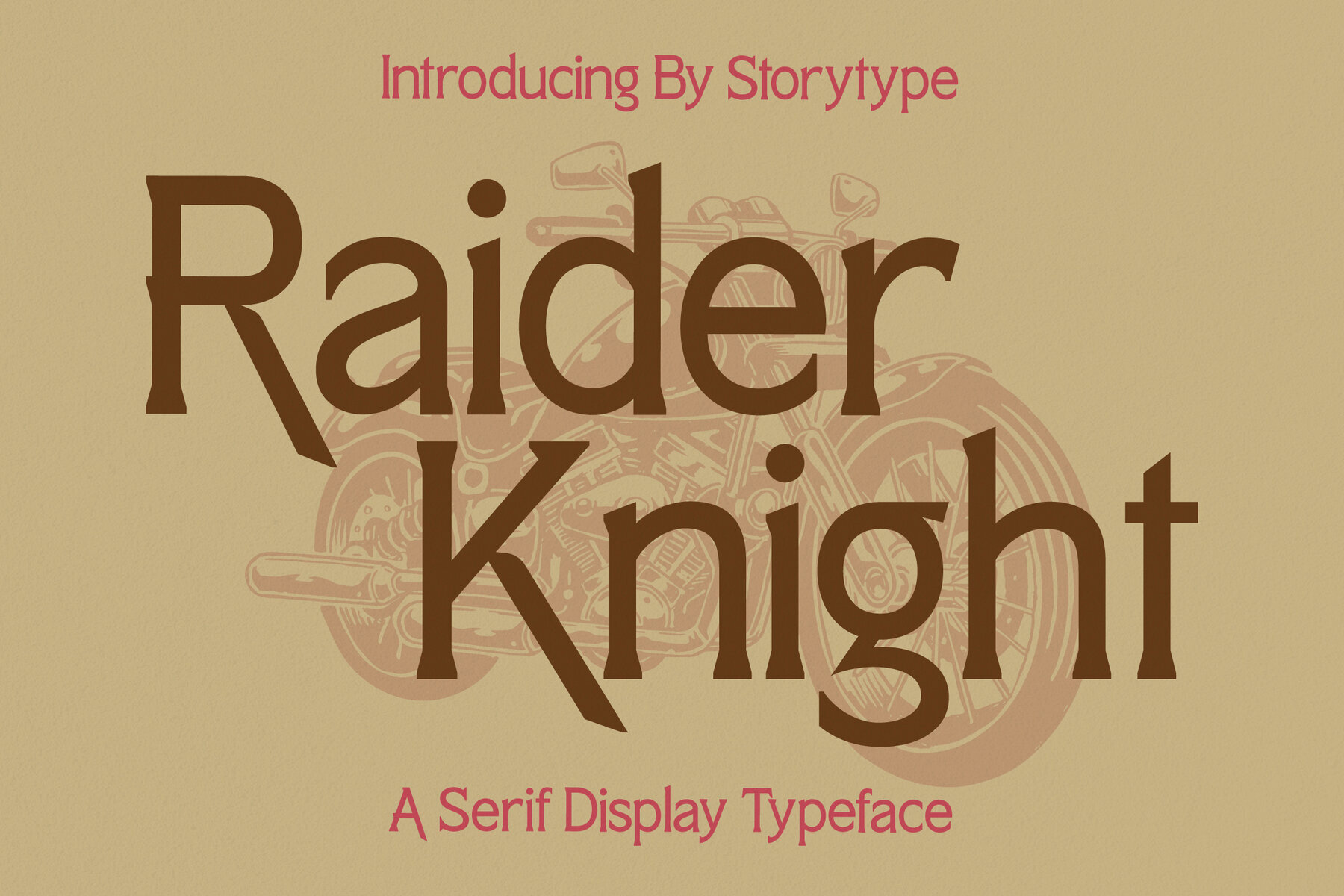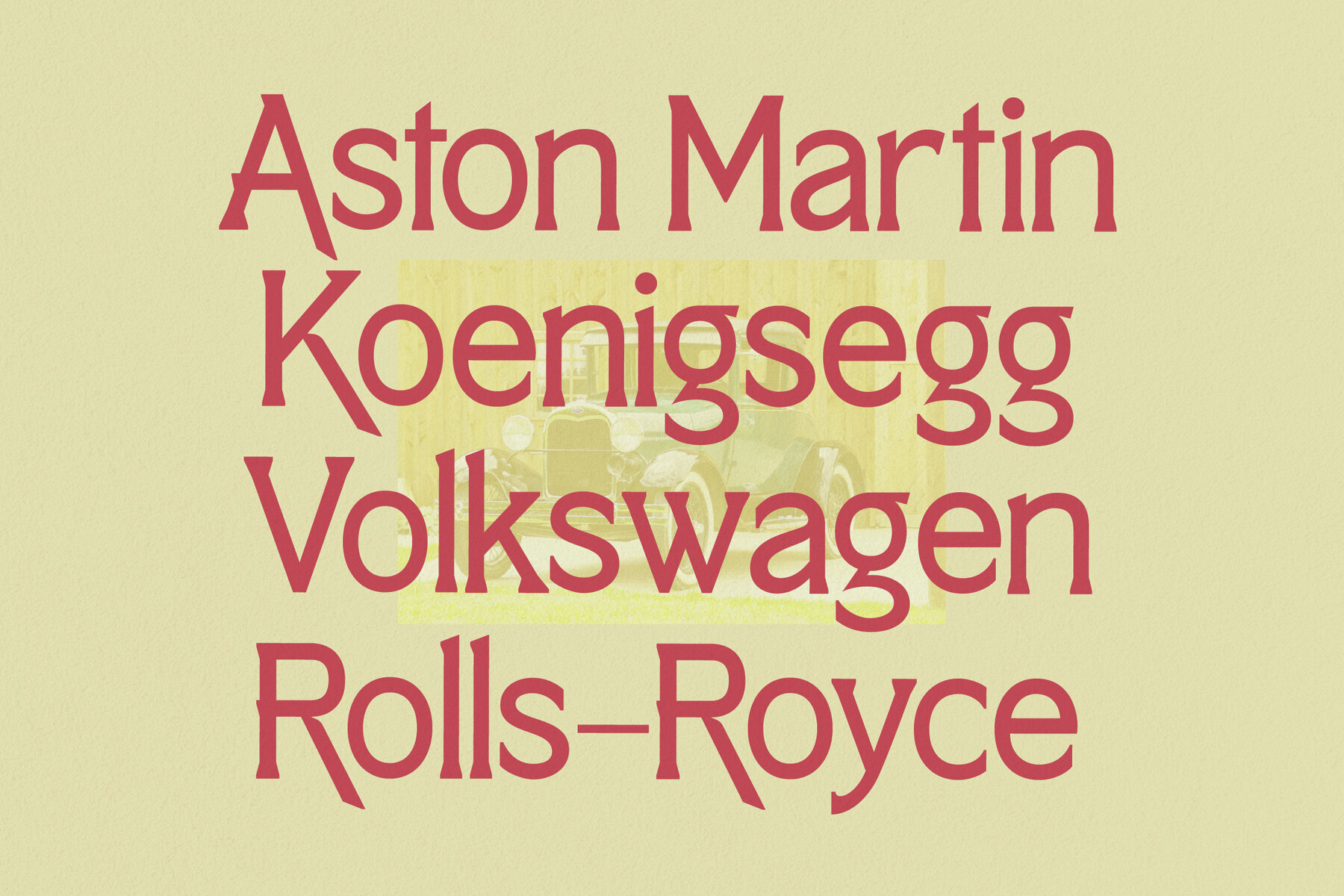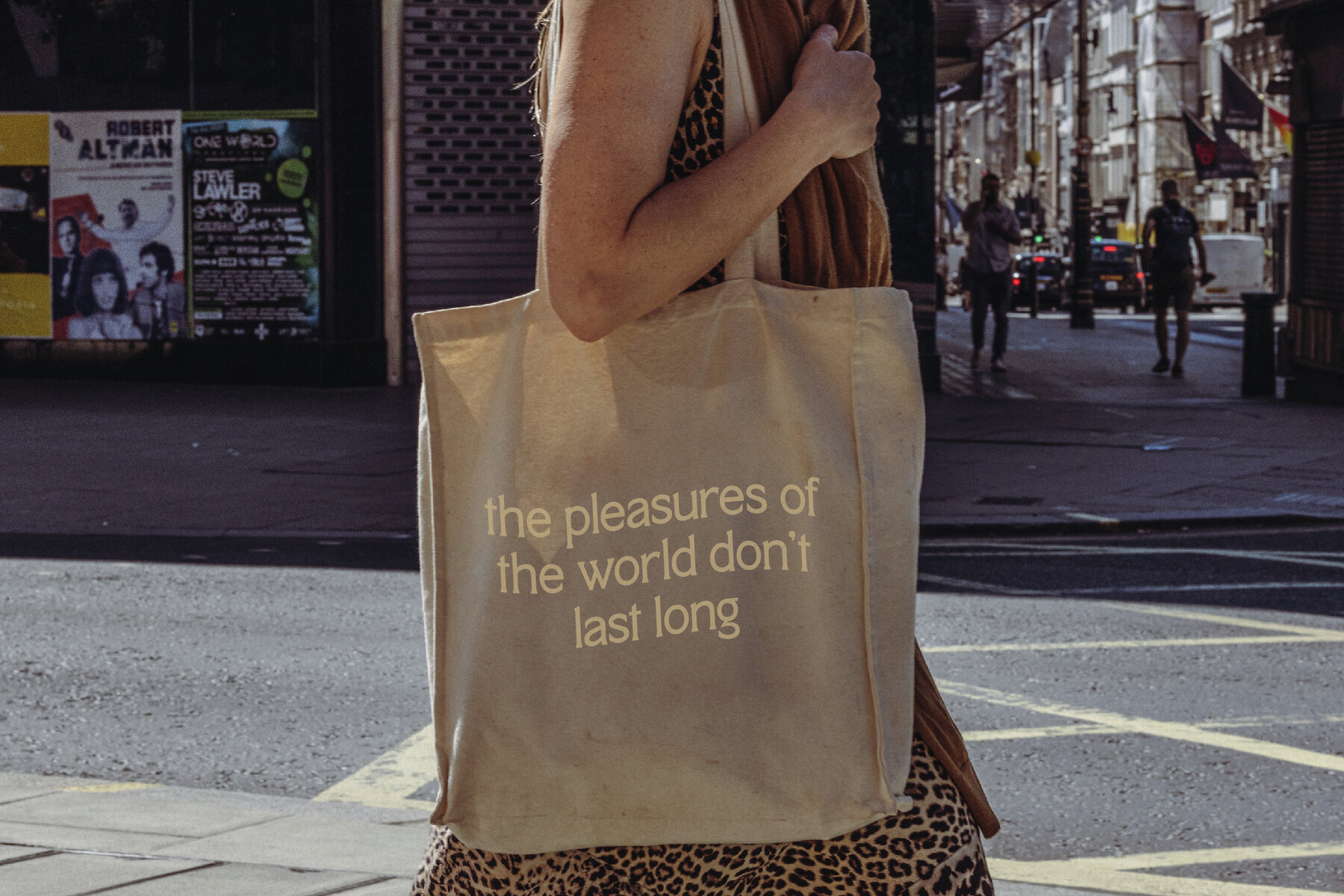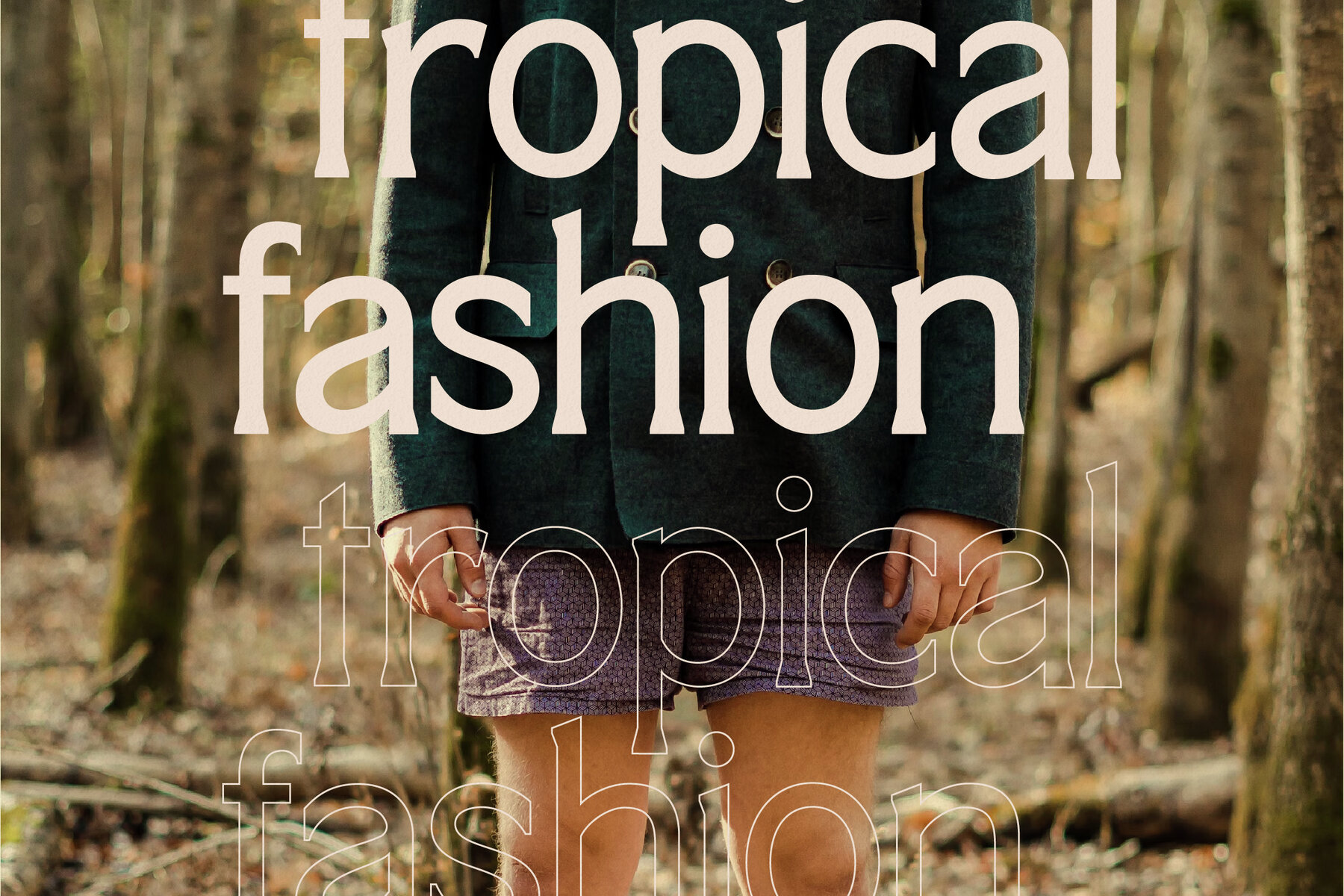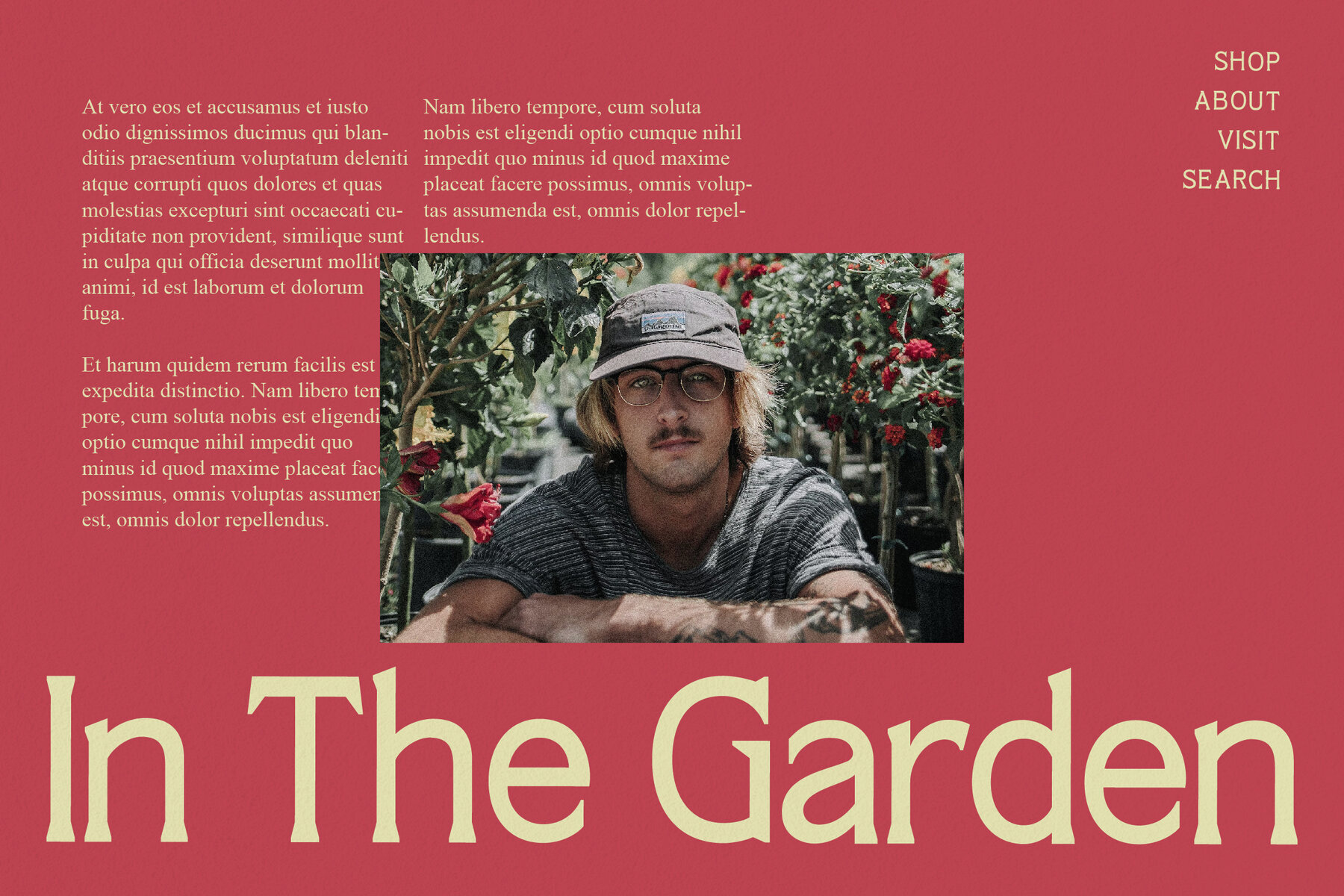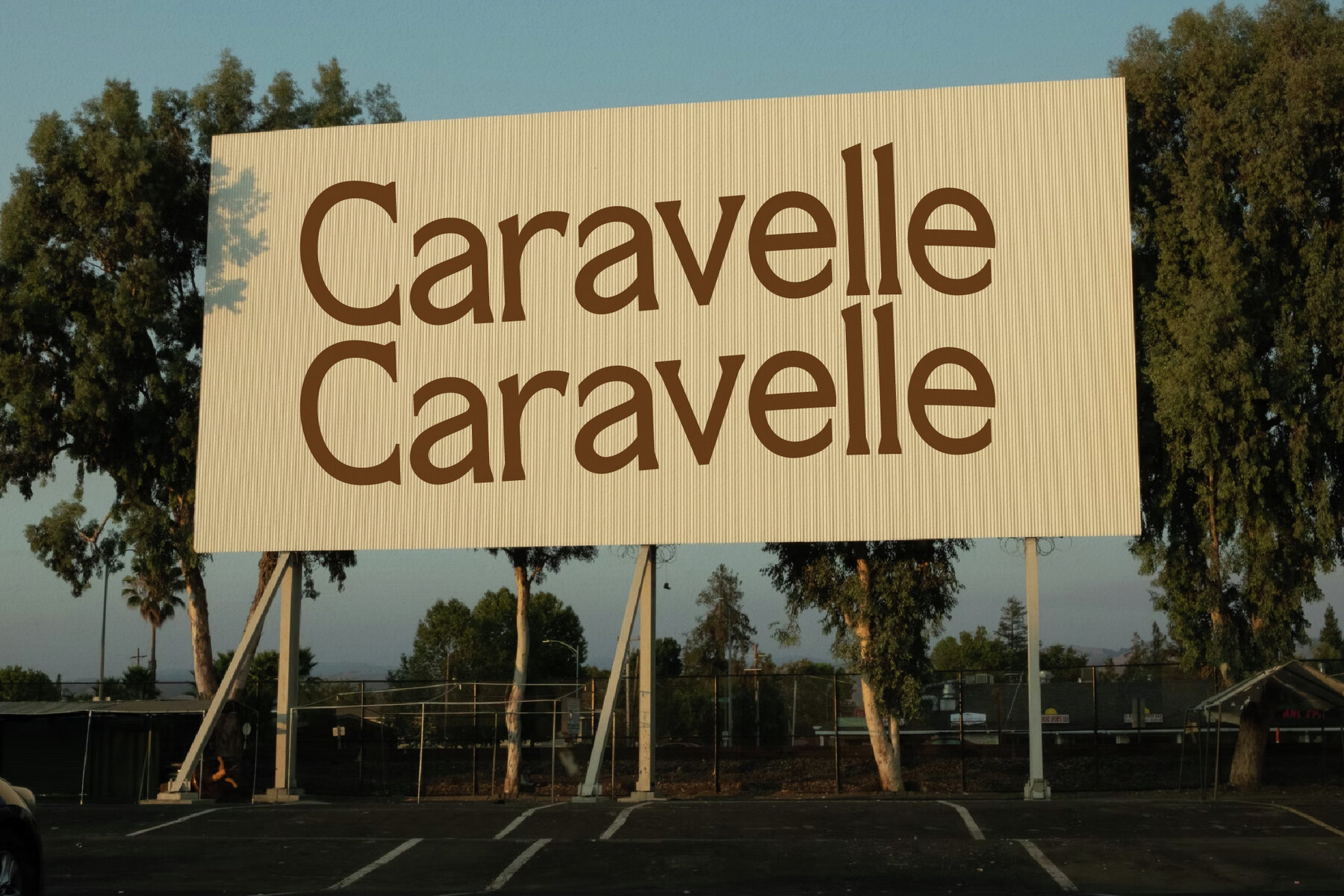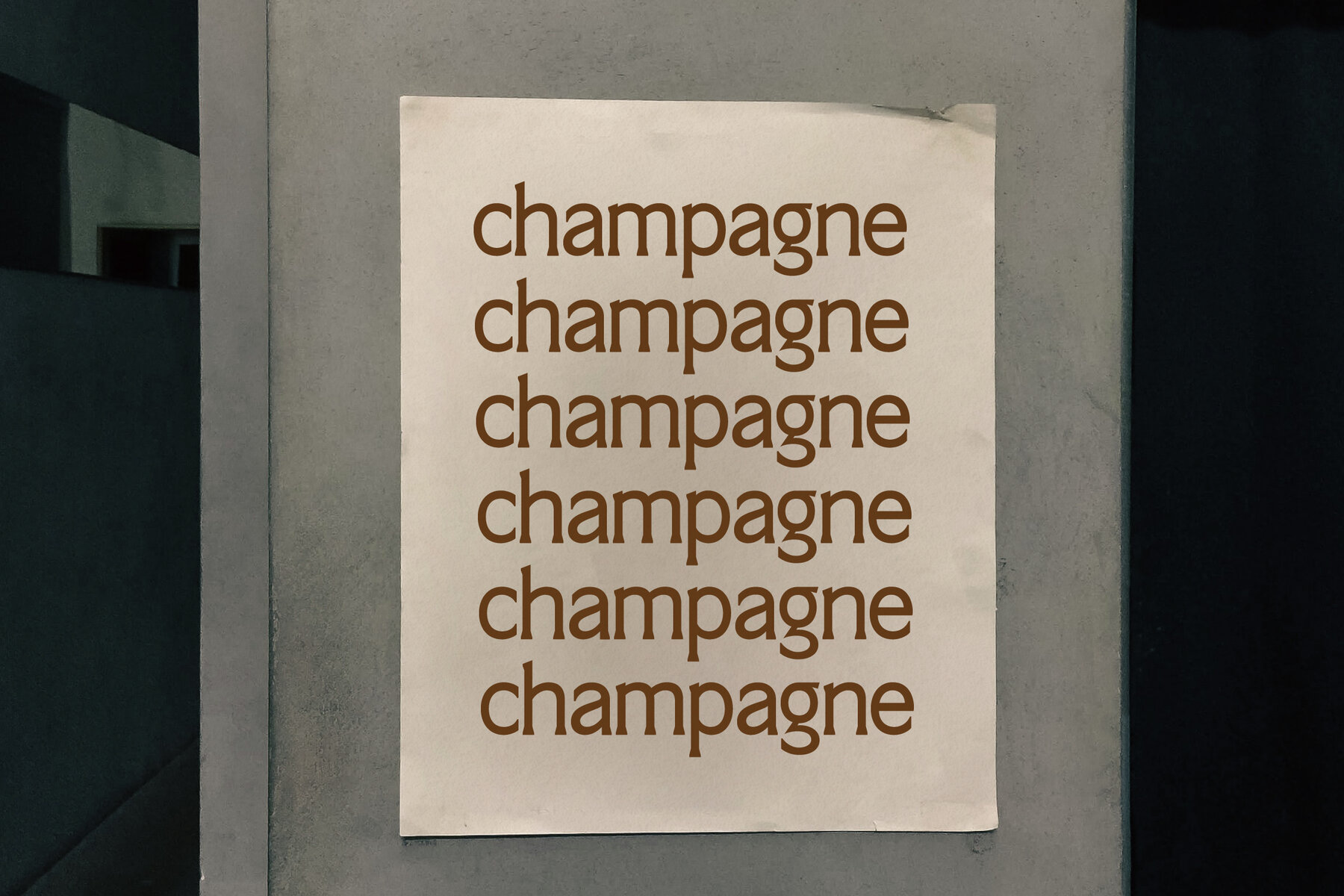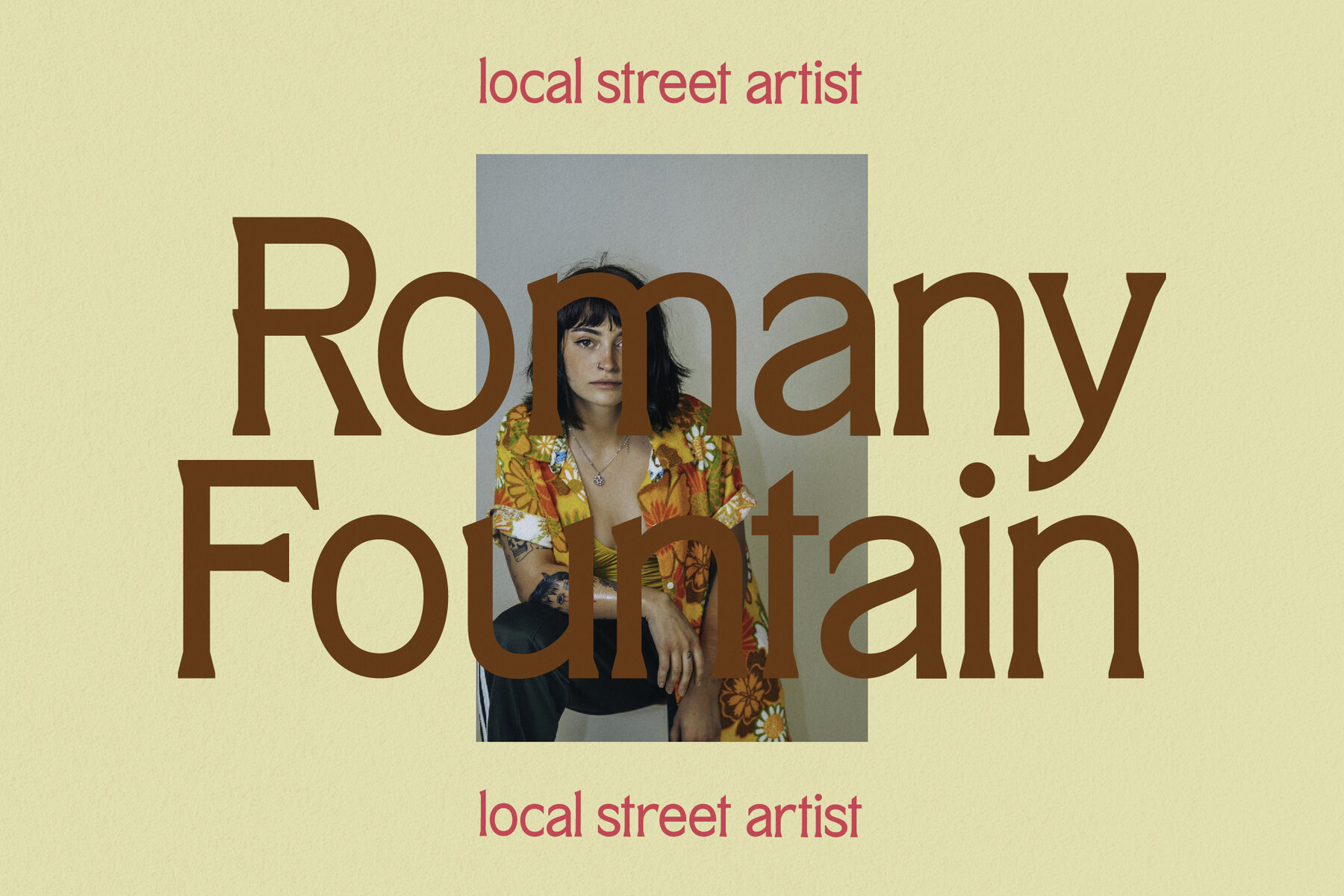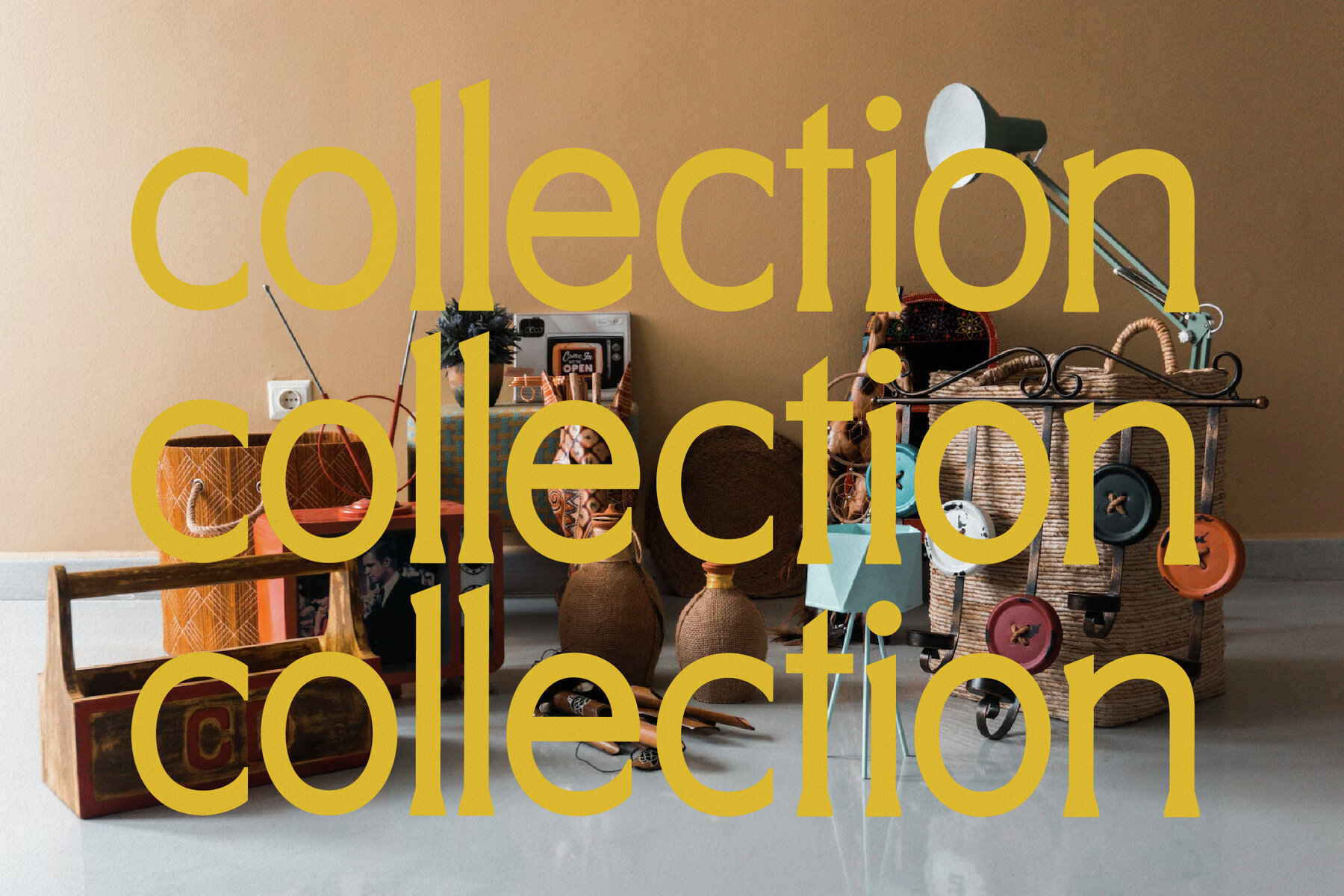
Raider Knight Font
Introducing the Raider Knight Typeface, a modern-classic serif font that exudes both elegance and sophistication. Its distinctive style makes it an ideal choice for luxury branding, be it logos, book or movie titles, fashion labels, or magazine covers. With its unique flair, Raider Knight is also perfect for artistic lettering or meaningful quotes.Raider Knight Typeface